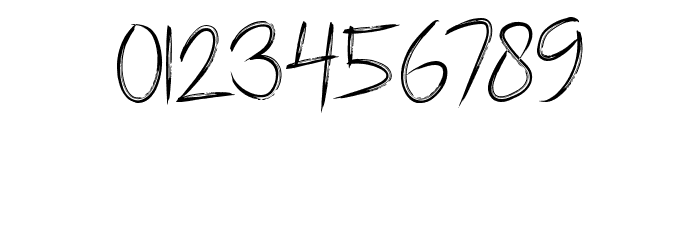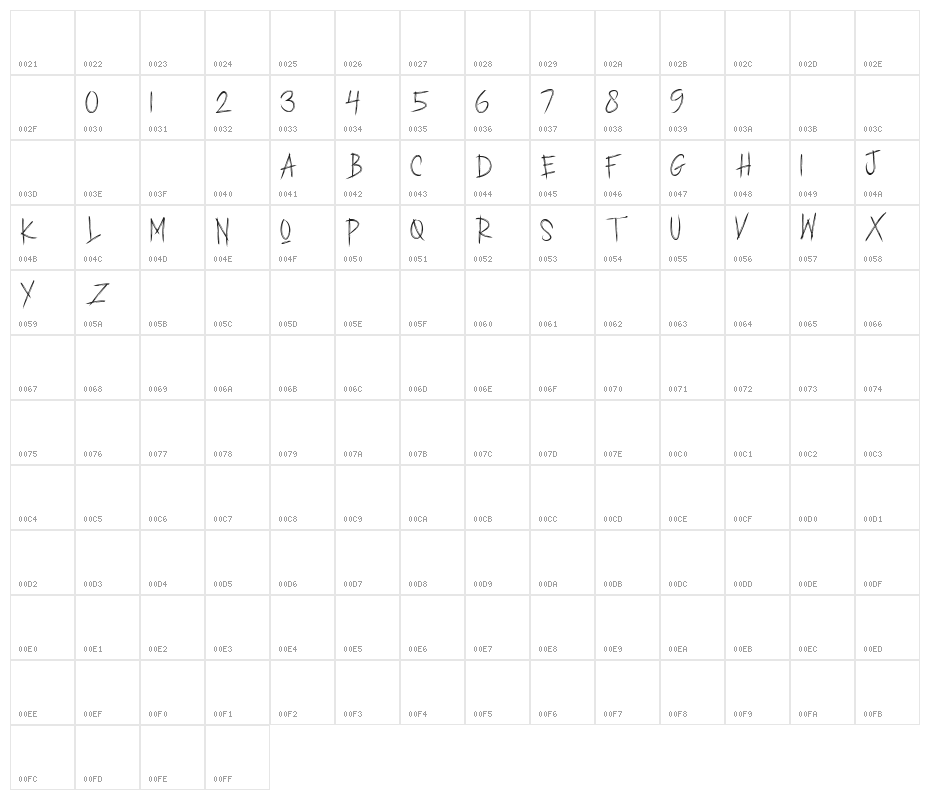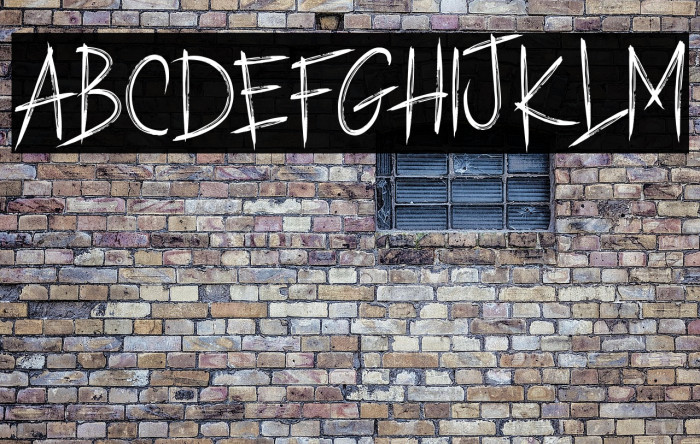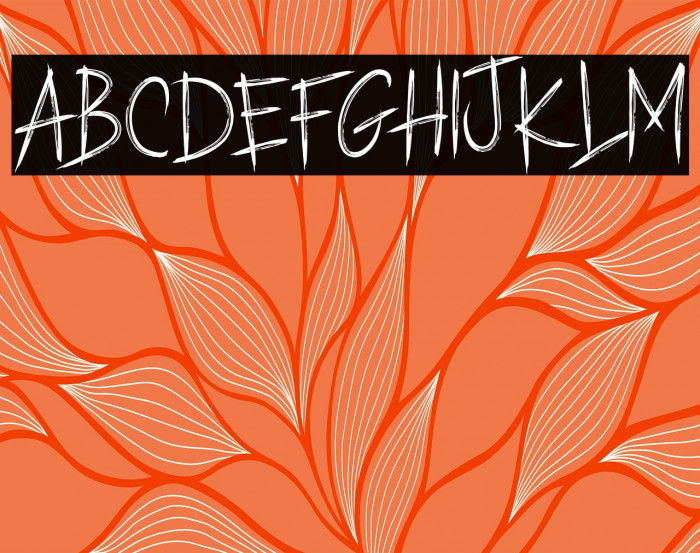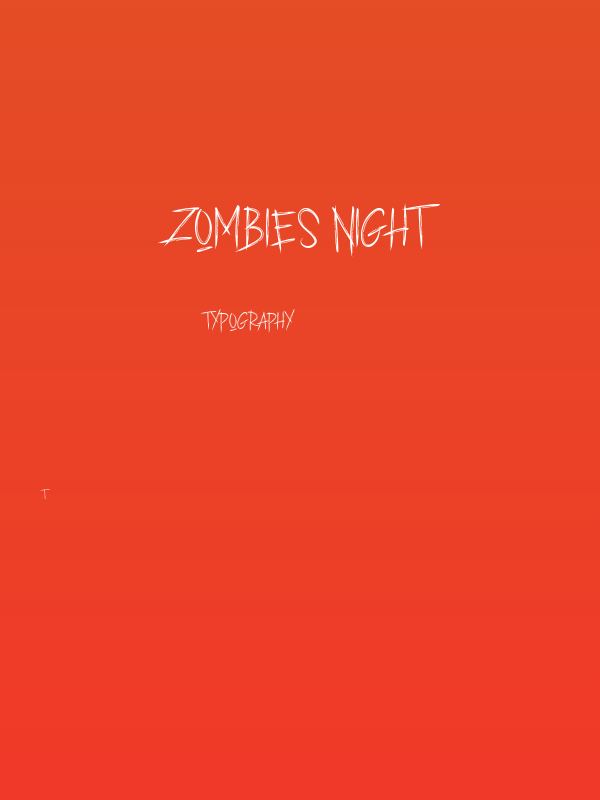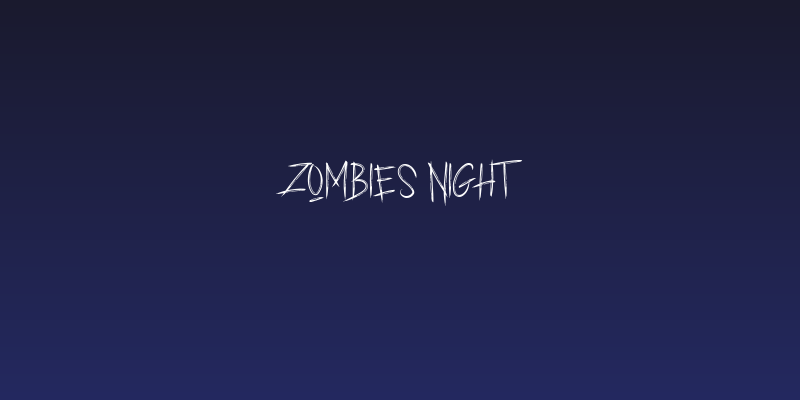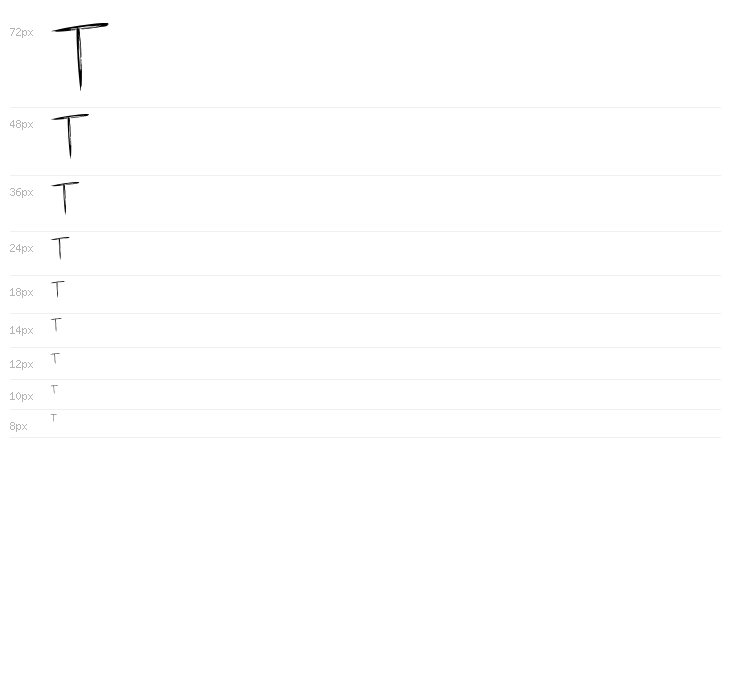
ZOMBIES NIGHT Font
ZOMBIES NIGHT Description
This font exudes a spooky and edgy vibe, reminiscent of horror themes and Halloween aesthetics. The letters are jagged and uneven, giving them a hand-drawn, scratchy appearance that suggests a sense of urgency or fear. The strokes are irregular, with some lines appearing thicker and others thinner, adding to the chaotic and unsettling feel. The overall design is highly stylized, making it perfect for projects that require a dramatic and eerie touch. The numbers follow the same style, maintaining consistency throughout the font. This font is ideal for creating eye-catching titles, posters, and graphics that need to convey a sense of mystery or suspense.
| Use Case | Headlines, Posters, Themed Graphics |
| Proposed Projects | Ideal for Halloween posters, horror movie titles, themed event invitations, and spooky graphic designs. |